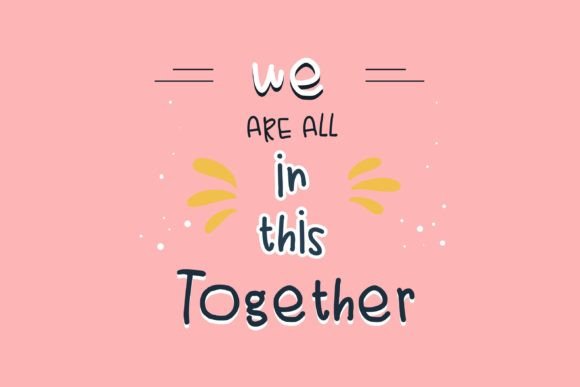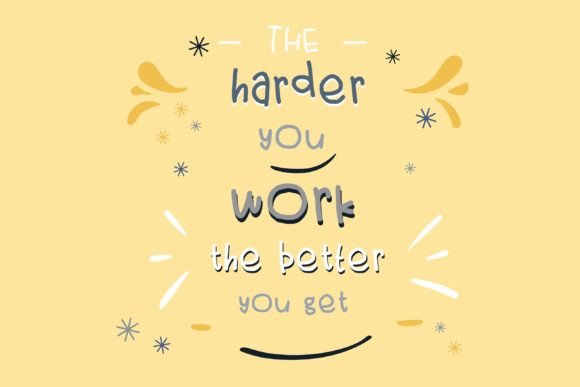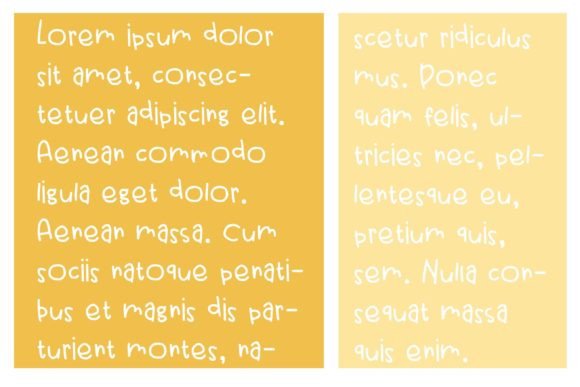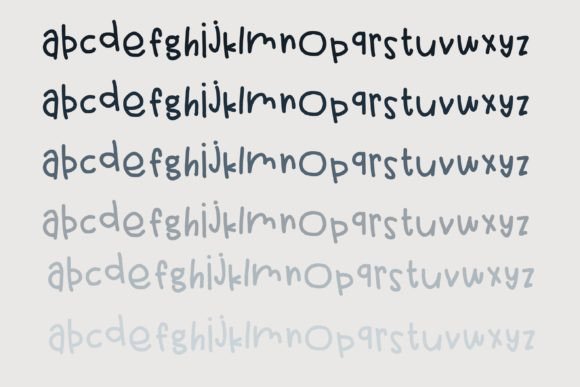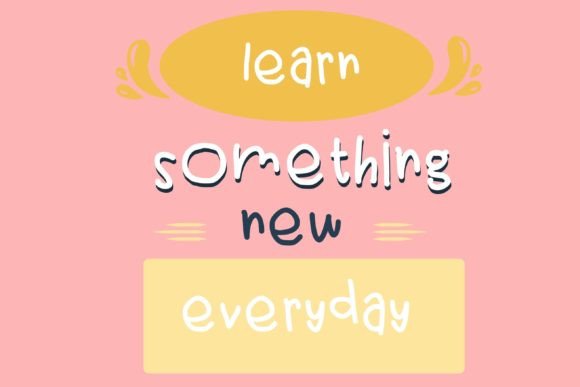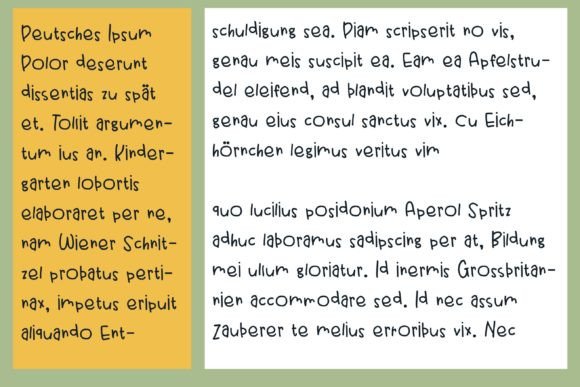
The Charm of Gobermouche Font: A Designer’s Delight
I’ll never forget the time I was working on a project for a client’s birthday party invitation. I had a clear vision of a fun, playful design, but I just couldn’t find the right font to match. That was until I stumbled upon the Gobermouche Font. With its youthful, hand-written print and wide spacing, it was love at first sight! ✨ In this article, I’ll share my experience with this beautiful font, its characteristics, and how to make the most of it in your designs.
What is Gobermouche Font?
Gobermouche Font is a hand-written print that exudes a carefree and youthful vibe. Its wide spacing and bold version make it perfect for invitations, greeting cards, and other creative projects. As a handwritten font, it’s designed to look like it was written by hand, giving it a unique and personal touch.
Characteristics of Handwritten Fonts
Handwritten fonts, like Gobermouche, have certain characteristics that set them apart from other font styles. These include:
- The letters are not perfectly uniform in size or shape.
- There may be slight variations in the spacing between letters and words.
- The font may have a “wiggly” or “squiggly” appearance.
- The font may be difficult to read at small sizes.
- ✨ Unique and playful design that’s perfect for creative projects.
- ✅ Wide spacing makes it easy to read, even at larger sizes.
- ✅ Bold version adds emphasis and makes it perfect for headings.
- ⚠️ May be difficult to read at small sizes, so use it wisely.
- 🤔 Limited use for formal projects, as it’s more suited for casual designs.
- Take advantage of Canva’s OpenType features, such as glyphs and stylistic alternates, to add more personality to your design.
- Explore the font’s OpenType features, such as glyphs and stylistic alternates, to add more personality to your design.
The Story Behind Gobermouche Font
Gobermouche Font was designed with the intention of capturing the carefree spirit of hand-written notes. Its creator wanted to create a font that would evoke a sense of nostalgia and playfulness, making it perfect for creative projects.
| Font Name | Gobermouche Font |
| Author | Illustration Ink |
Q: What is the best use for Gobermouche Font?
A: Gobermouche Font is perfect for creative projects, such as invitations, greeting cards, and other designs where a playful touch is desired.
Q: Is Gobermouche Font suitable for body text?
A: No, Gobermouche Font is best used for headings and titles, as it may be difficult to read at small sizes.